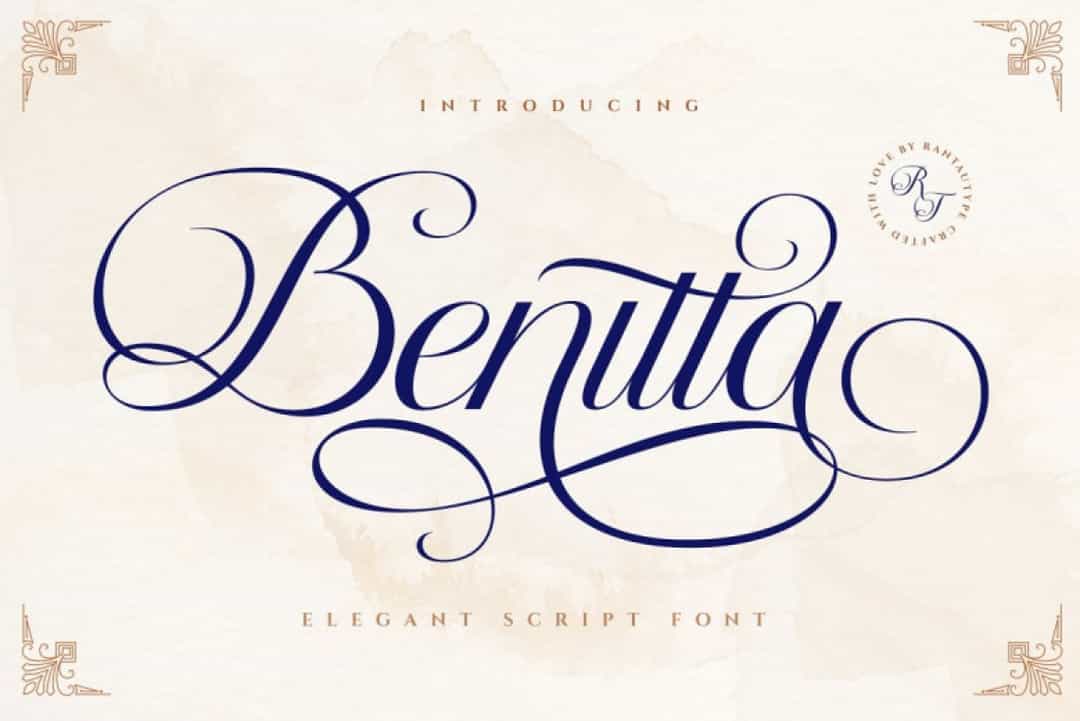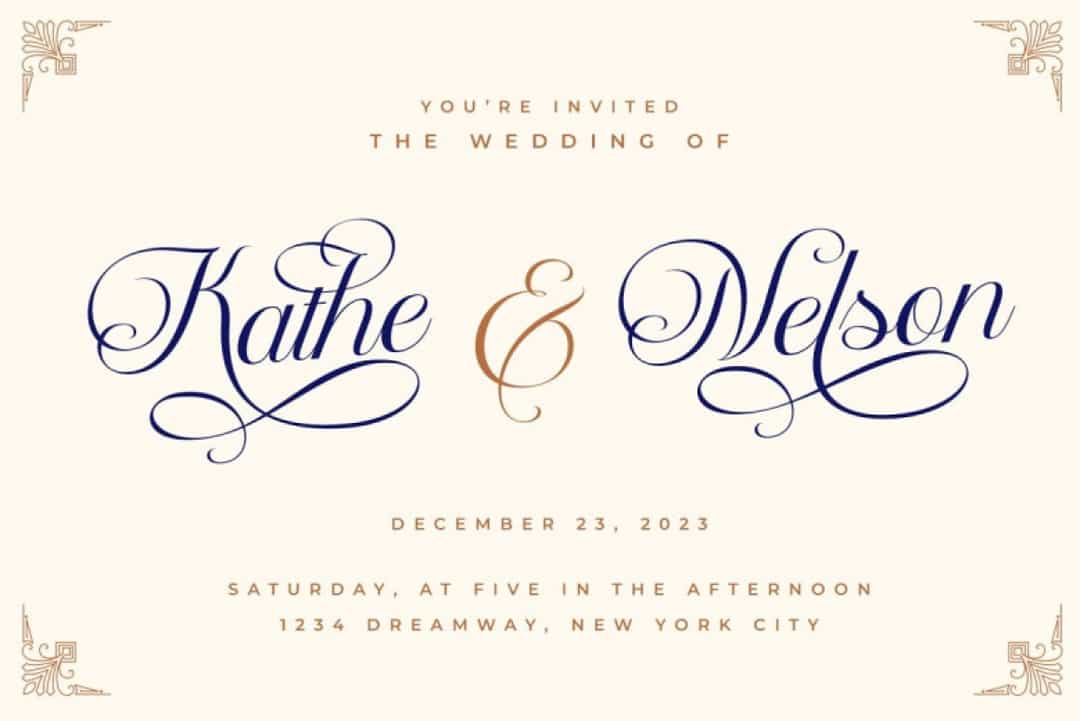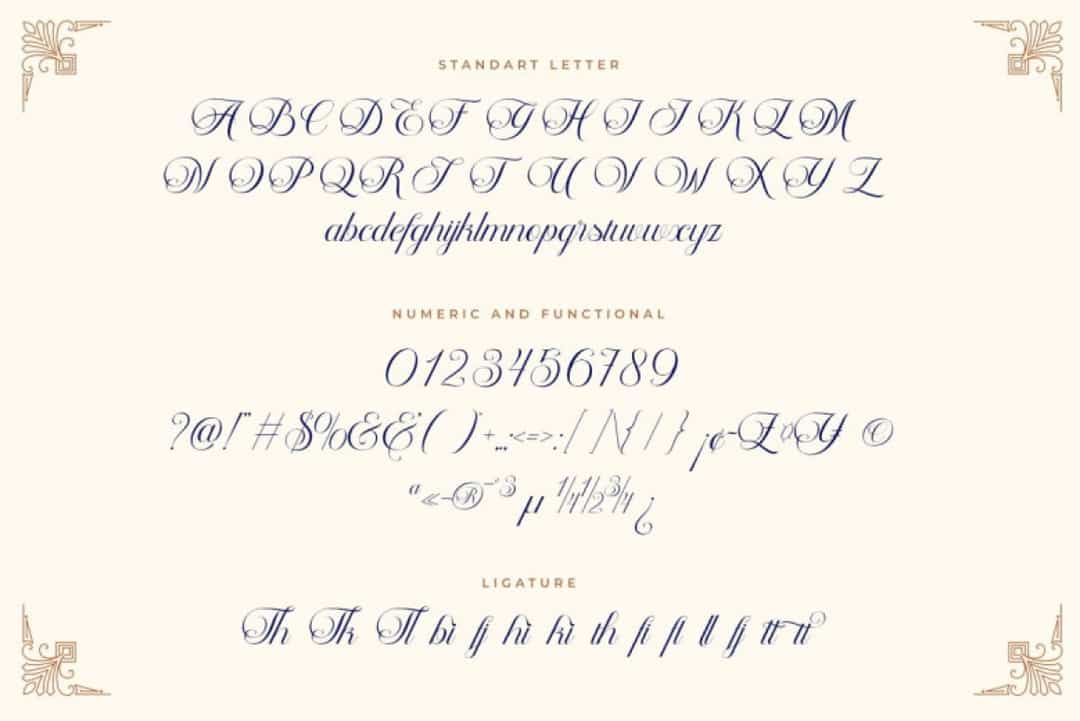
Benitta is an elegant script calligraphy font designed to be read professionally using its chic yet soft curvature. This font’s style is elegant, feminine, chic and modern; minimalist yet sleek elegant for easy reading; attractive and simple use with multilingual support features such as ligature support stunning alternate options with multilingual assistance available to Benitta users.